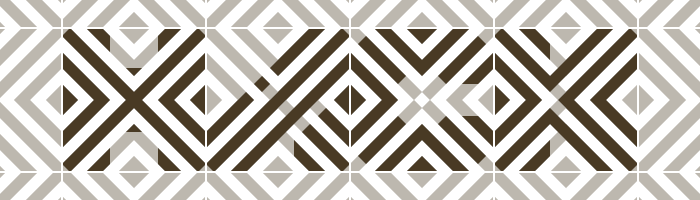
tm Hack
by thalamic
What an unusual use of simple straight lines, highly decorative yet legible when looking carefully. Congratulations on the TP :)
These kinds of fonts I can probably do in my sleep...but at the same time, they offer so many possibilities that I get lost in which option to select and which to reject. Classic 'cereal aisle' syndrome. At some point you just have to let it go.
<b>G violates the geometry of the whole font.
S also violates the geometry
8 looks lihe a fat X
So decorative, to be read with eyes half closed I think.